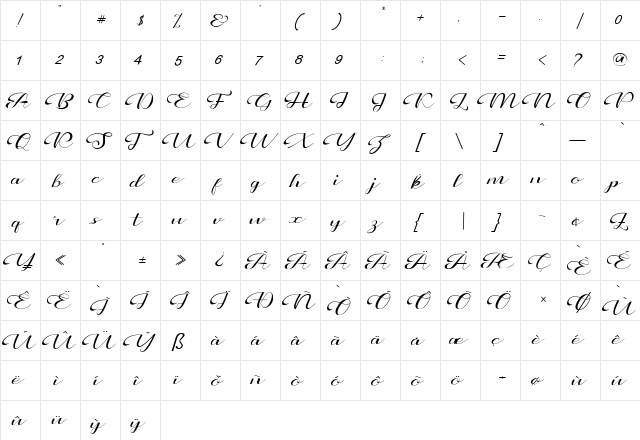
Prettyholic Sscript Regular
Design Context for Prettyholic Sscript Typeface
Prettyholic Sscript flows with the natural rhythm of handwritten lettering, making it ideal for designs that call for warmth and personal expression.
Font Pairing: Combine Prettyholic Sscript with a simple geometric sans for maximum contrast — the tension between flowing curves and clean structure is a classic typographic pairing.
Pro Tip: Pair Prettyholic Sscript with a clean sans-serif for supporting text. The contrast between fluid script and geometric structure creates an elegant typographic hierarchy.